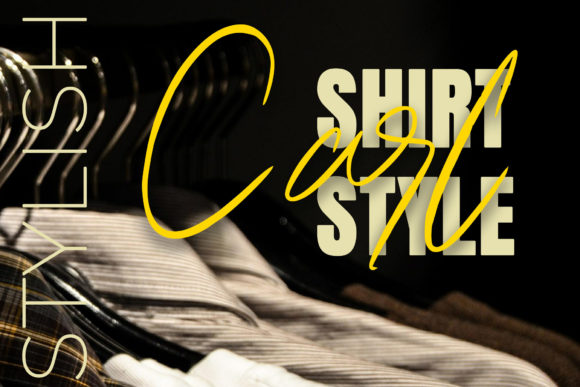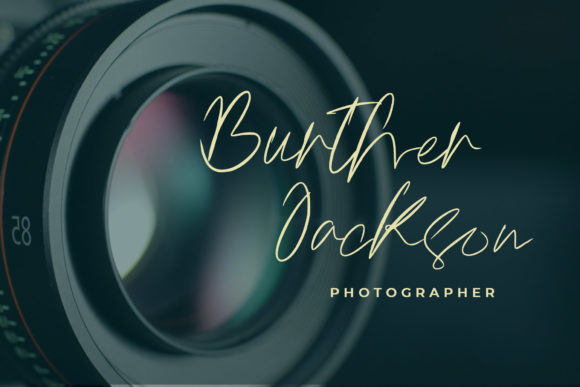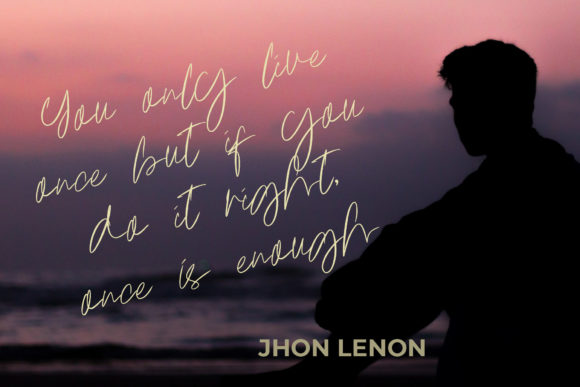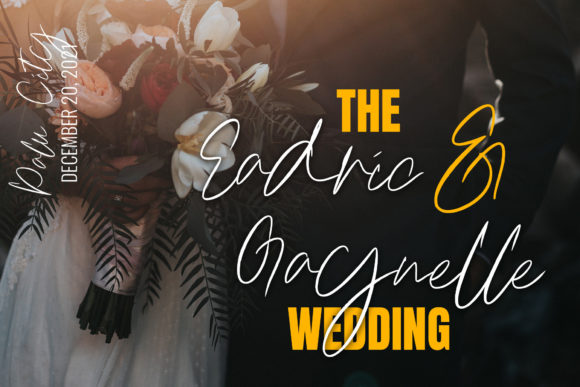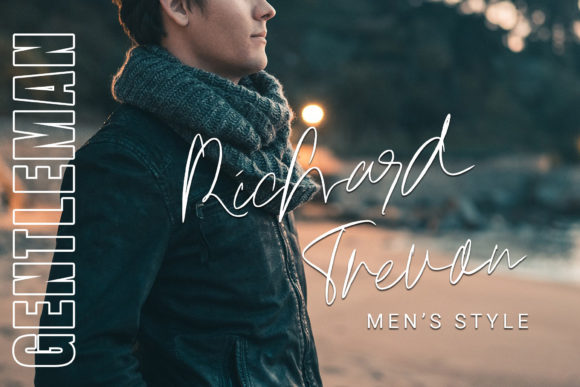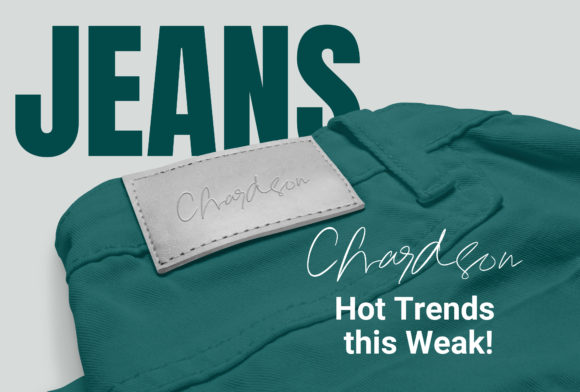
Ametta Signature Script Font: Elevate Your Designs with Elegance
Are you looking for a font that exudes luxury and sophistication? Look no further than the Ametta Signature Script Font. This stunning thin lettered script font is perfect for designers and crafters seeking to add a touch of elegance to their projects. With its beautiful and flowing lines, Ametta Signature Script is ideal for a variety of designs that require a personalized style.
What Makes Ametta Signature Script Font Special?
Ametta Signature Script Font is a unique and exquisite font that is sure to make your designs stand out. Its thin lettering gives it a delicate and refined look, making it perfect for projects that require a touch of sophistication. Whether you’re designing wedding invitations, thank you cards, or greeting cards, this font is sure to impress.
Weddings and special events are a perfect match for Ametta Signature Script Font. The font’s luxurious and elegant look makes it ideal for wedding invitations, save-the-date cards, and other event-related designs. You can also use it to create beautiful thank you cards, place cards, and other stationery items that require a personal touch.
Ideal for Logos and Branding
Ametta Signature Script Font is not just limited to event designs. Its elegant and sophisticated look makes it perfect for logos, branding, and packaging designs. You can use it to create a unique and memorable logo that reflects your brand’s personality and style.
Key Features of Ametta Signature Script Font
- Thin lettered script font: Ametta Signature Script Font features thin lettering that gives it a delicate and refined look.
- Luxurious and elegant: The font’s luxurious and elegant look makes it perfect for designs that require a touch of sophistication.
- Personalized style: Ametta Signature Script Font is ideal for designs that require a personalized style, such as wedding invitations, thank you cards, and greeting cards.
- Versatile: You can use Ametta Signature Script Font for a variety of designs, including logos, branding, packaging, and more.
Tips for Using Ametta Signature Script Font
Here are some tips for using Ametta Signature Script Font effectively:
- Pair it with a sans-serif font: Pair Ametta Signature Script Font with a sans-serif font to create a beautiful contrast and add visual interest to your design.
- Use it for headings and titles: Ametta Signature Script Font is perfect for headings and titles. Use it to create eye-catching headlines that grab attention.
- Experiment with colors: Ametta Signature Script Font looks beautiful in a variety of colors. Experiment with different colors to find the one that works best for your design.
Ametta Signature Script Font is a beautiful and elegant font that is perfect for designers and crafters seeking to add a touch of sophistication to their projects. With its thin lettering and luxurious look, it’s ideal for wedding invitations, thank you cards, logos, branding, and more. Whether you’re a professional designer or a DIY crafter, Ametta Signature Script Font is sure to elevate your designs and make them stand out.